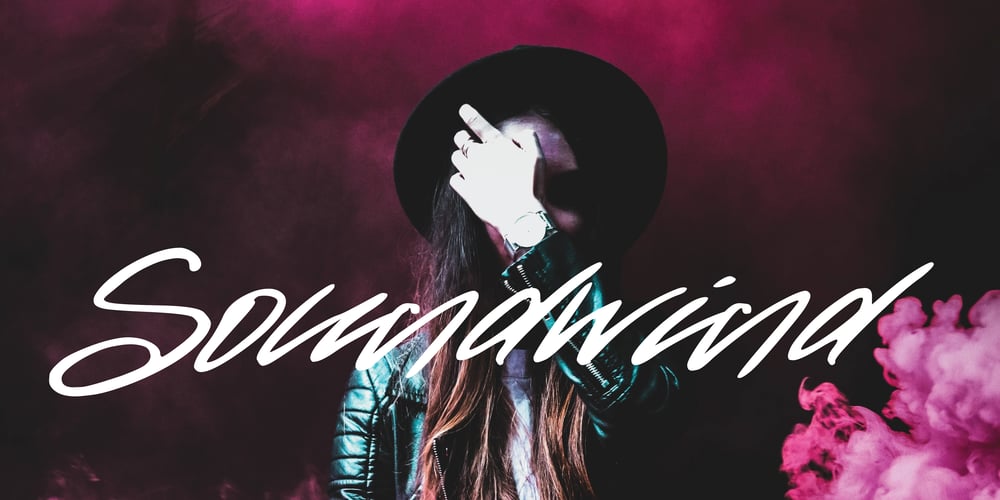
Soundwind Font Family was designed by Mariyana and published by Goodigital13. Soundwind contains 1 styles and family package options. This font is suitable for invitation cards, decorations, clothing products, greeting cards and others.Suitable for design, element design, wedding, event, t-shirt, logo, badges, sticker, and awesome work, etc branding projects, logo, wedding designs, social media posts, advertisements, quoted text, signature, product packaging, product designs, label, photography, watermark, invitation, stationery, fashion, boutique, furniture, and any projects, it makes with a high level of legibility. It’s also a perfect fit for a beauty-themed – or a stylish text overlay to any background image.